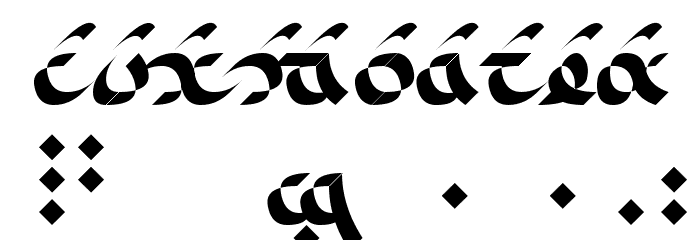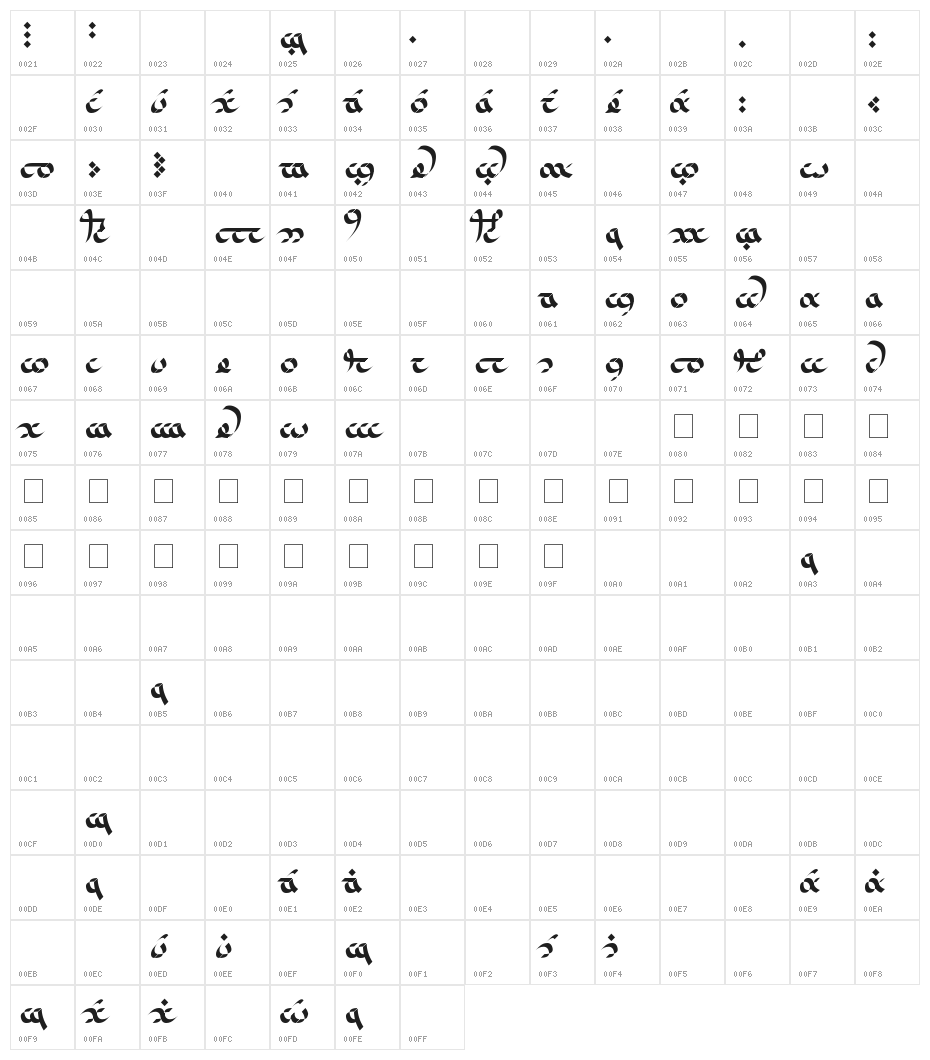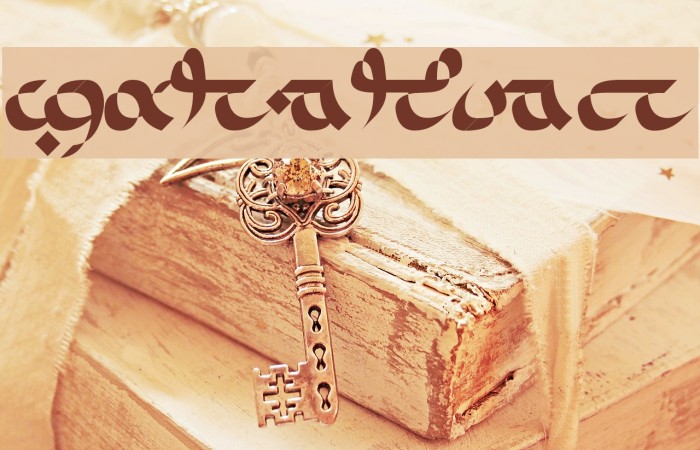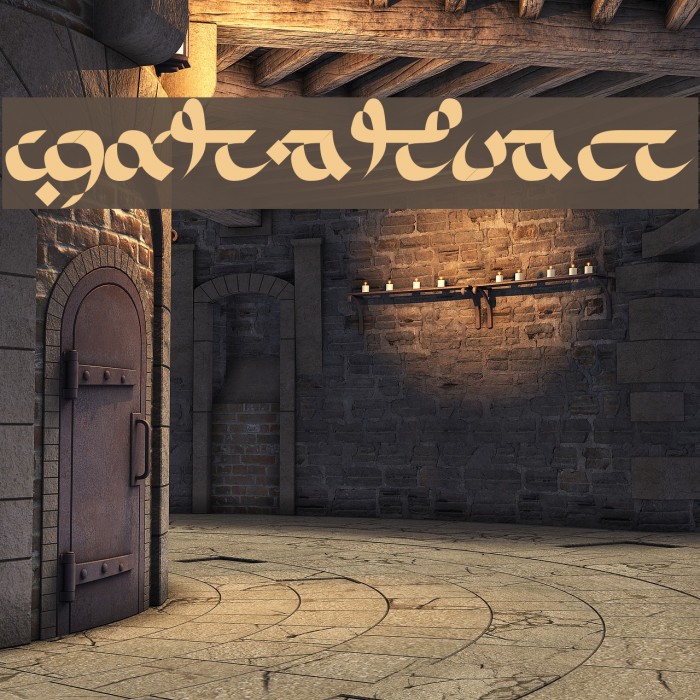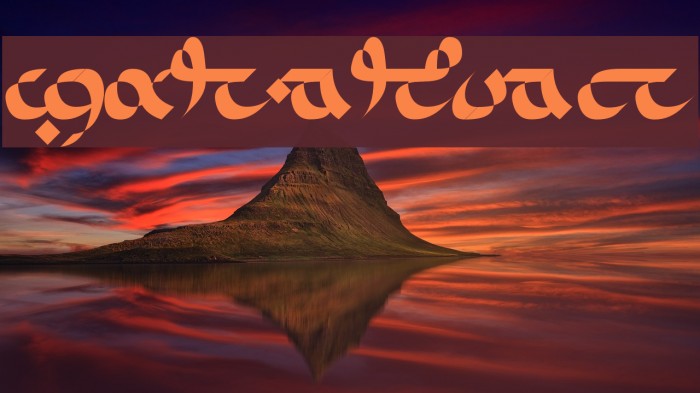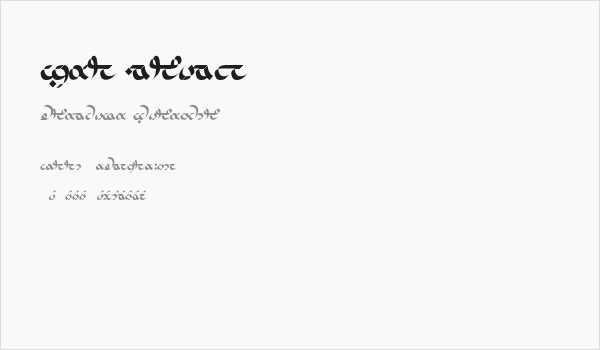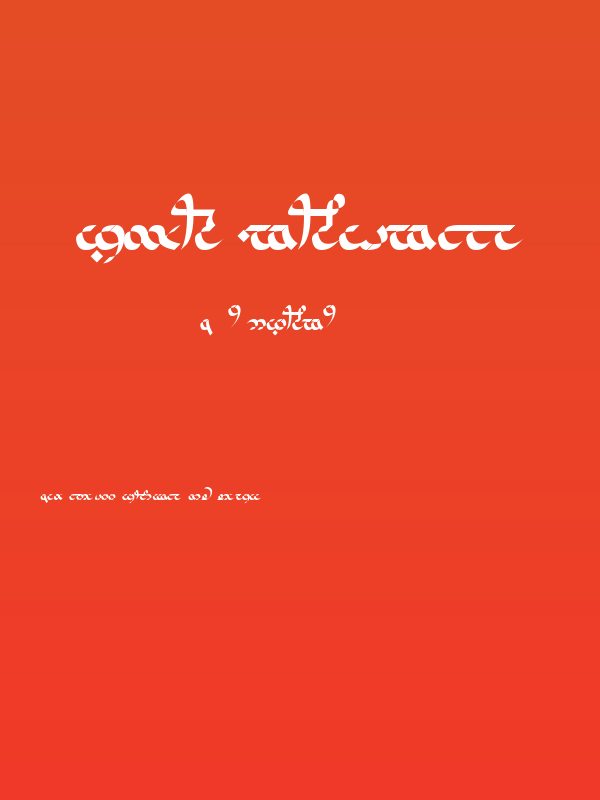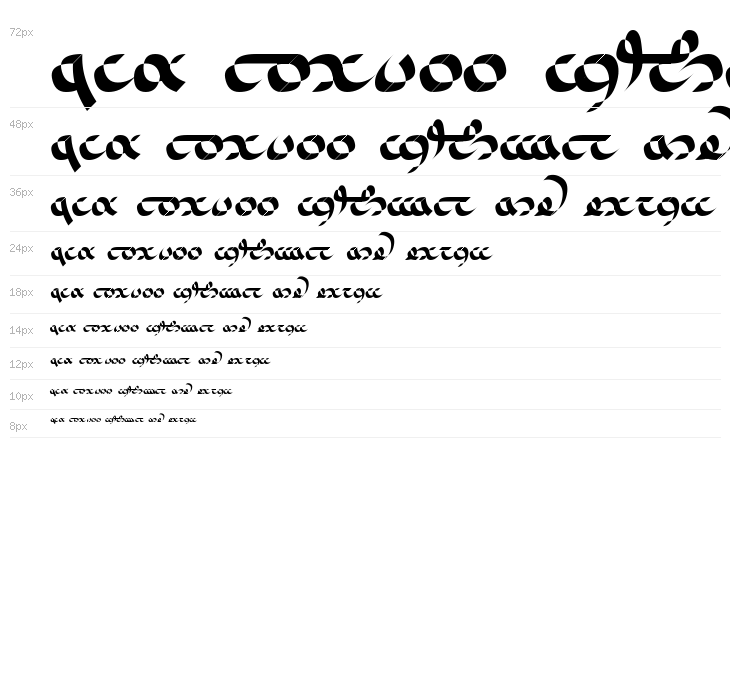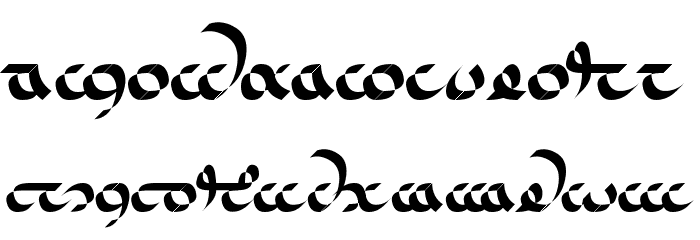
Bel'arian Font
Bel'arian Description
This font features a highly decorative and stylized design, reminiscent of ancient scripts or fantasy-themed writing. The characters are bold and have a calligraphic flair, with intricate curves and sharp angles that create a sense of mystery and elegance. The strokes are thick and consistent, providing a strong visual impact. The overall appearance is unique and artistic, making it suitable for creative and thematic projects. The font's distinct style is ideal for capturing attention and conveying a sense of history or fantasy.
| Proposed Projects | Ideal for fantasy-themed projects, game design, book covers, and artistic posters. |